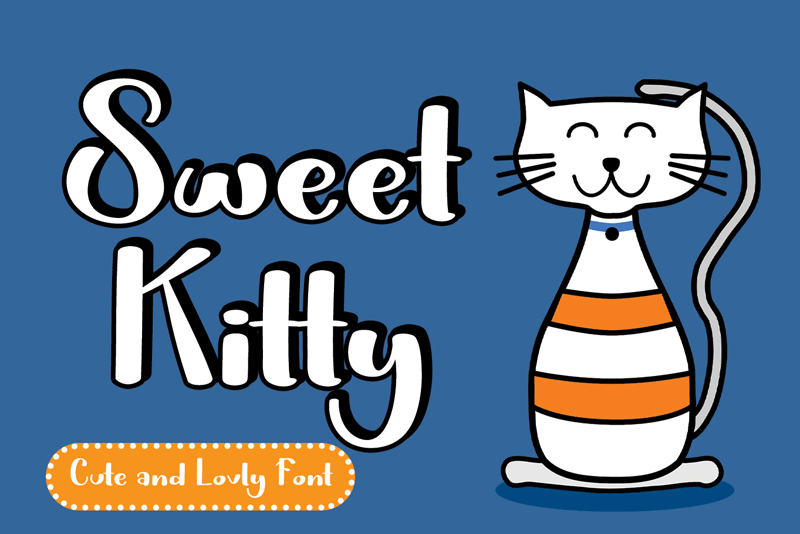
Sweet Kitty is a playful script font carefully created with a touch of magic. Whether you�re looking for fonts for Instagram or calligraphy scripts for DIY projects, this font will turn any creative idea into a true piece of art! Attention : Sweet Kitty handwriting Font is prohibited to use this font for commercial purposes or for profit without the permission of the author/admin, without being known to use this font without permission, will be subject to sanctions 5x the specified price. This font is used only for demos (Demo license) If you want to use this font for commercial use please contact email: elllulukstudio123@gmail.com or click the link below: https://www.creativefabrica.com/product/sweet-kitty/ref/761303/ If you want to see more other fonts, please click: https://www.creativefabrica.com/designer/el_hotcig/ref/761303/ Any donations are very appreciated. Paypal account for donation: https://www.paypal.com/paypalme/luluk783 thanks. |